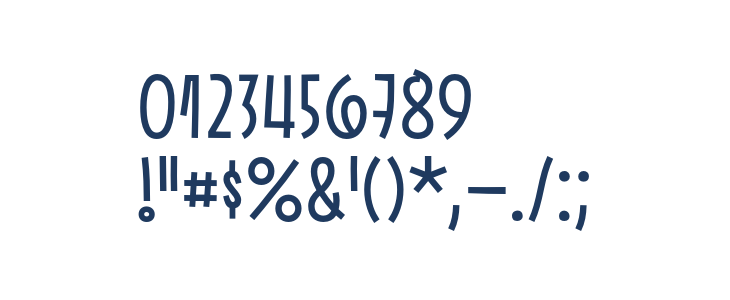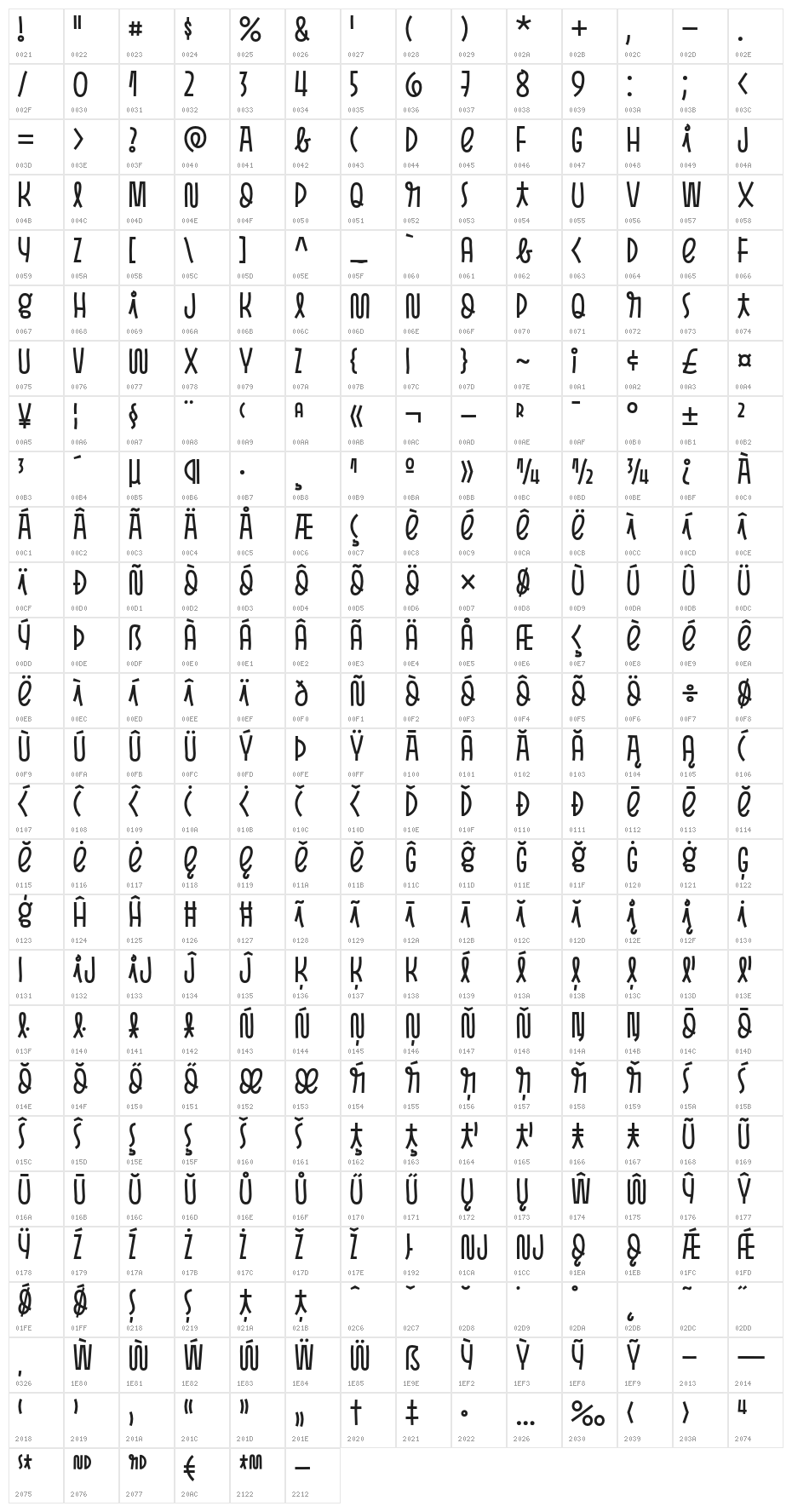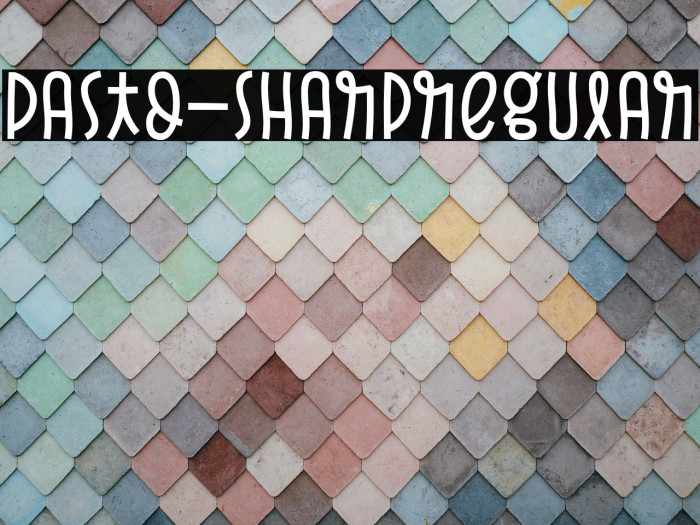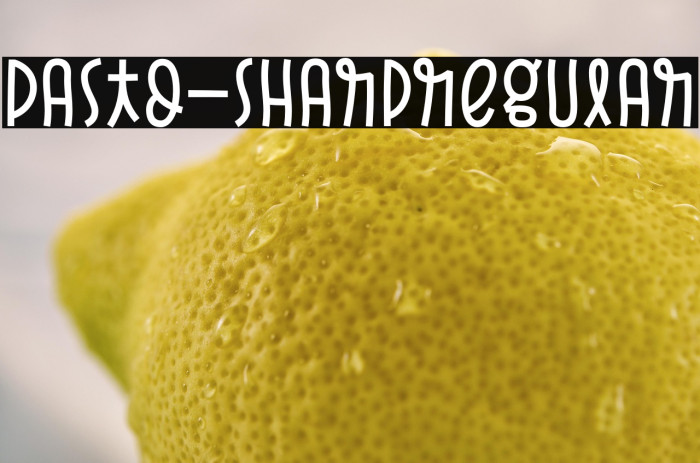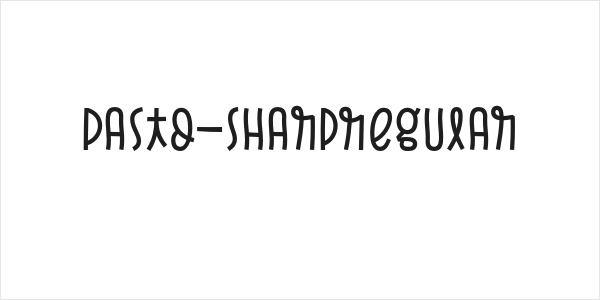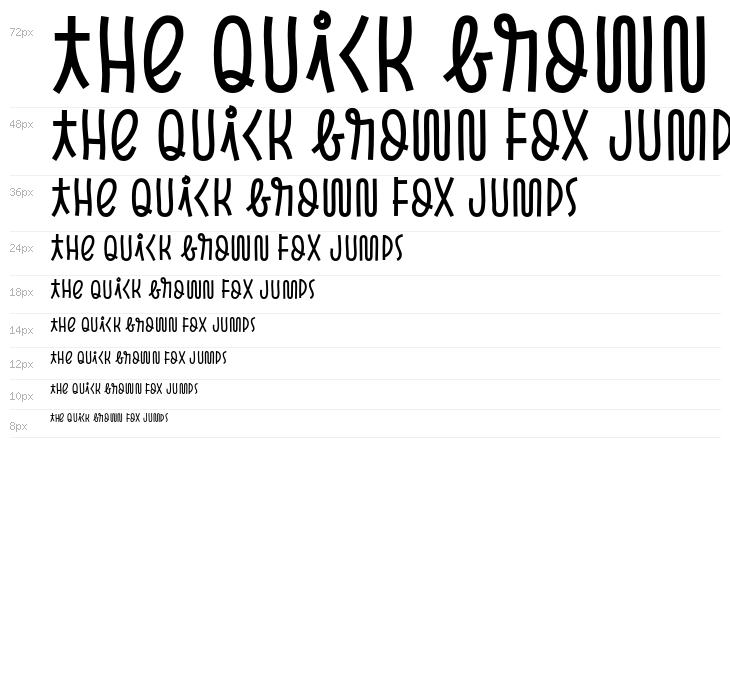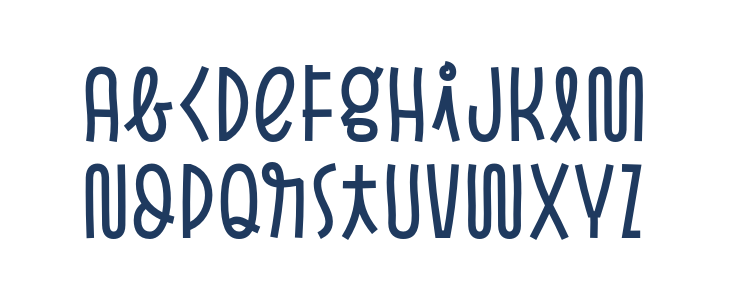
Pasto-SharpRegular Font
Pasto-SharpRegular Description
This font features a playful and quirky design, characterized by its unique and unconventional letterforms. The characters exhibit a mix of sharp angles and smooth curves, creating a dynamic and energetic appearance. The uppercase letters are particularly distinctive, with some characters incorporating unexpected elements such as loops and asymmetrical shapes. The lowercase letters maintain the whimsical style, with a consistent stroke width that adds to the font's bold presence. Numbers and special characters follow the same design principles, ensuring a cohesive look across all glyphs. This font's distinctive style makes it stand out, offering a fresh and modern take on traditional letterforms.
| Proposed Projects | Ideal for creative projects such as branding, posters, children's books, and playful packaging designs. |